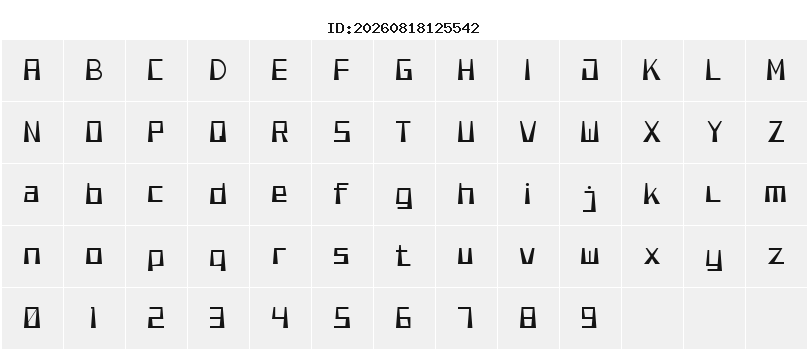
Smooth Pixel 7 Preview
• Font Name: Smooth Pixel 7
• Designer: Sizenko Alexander
• Manufacturer: Style-7
Smooth Pixel 7.ttf is a modern, elegant sans-serif font designed for ultimate readability and visual harmony. Perfect for branding, headlines, web design, and print materials.